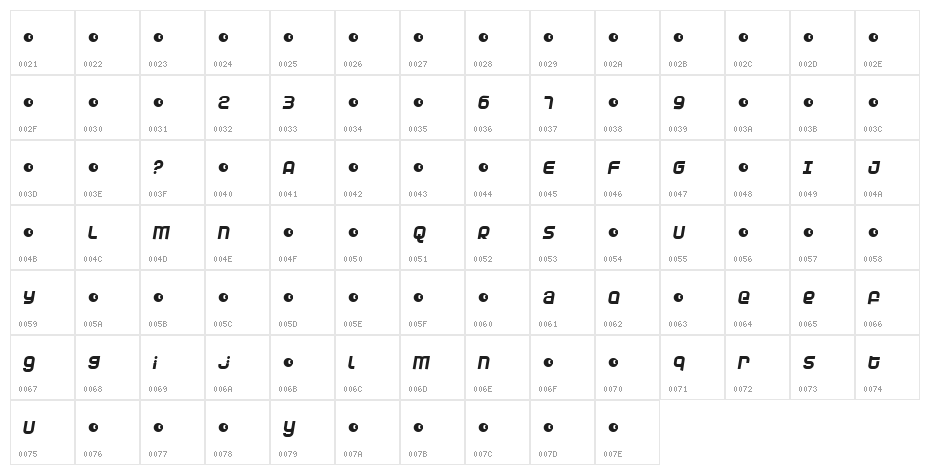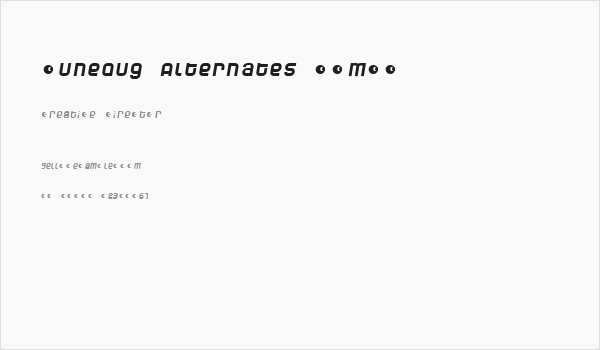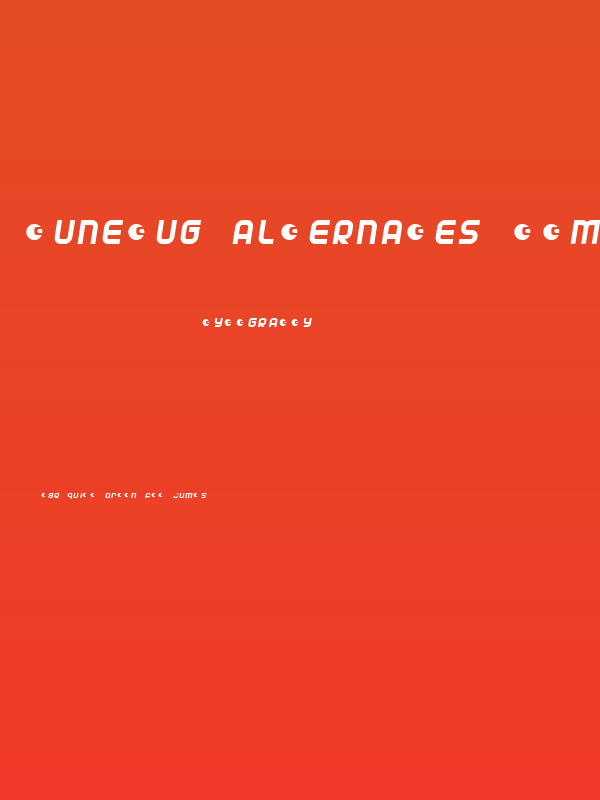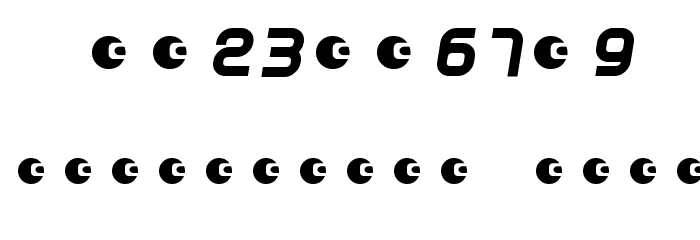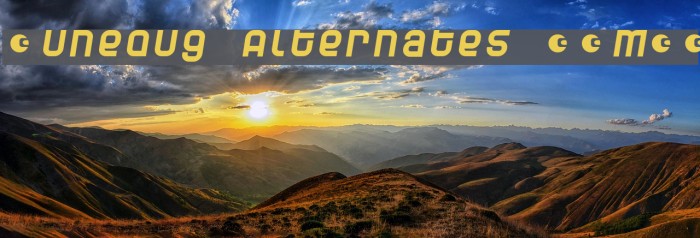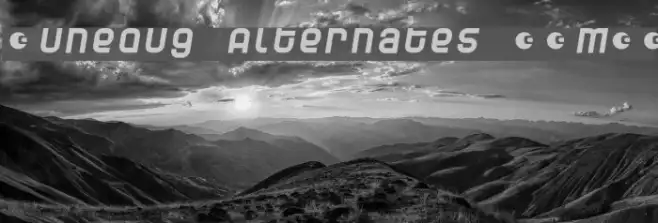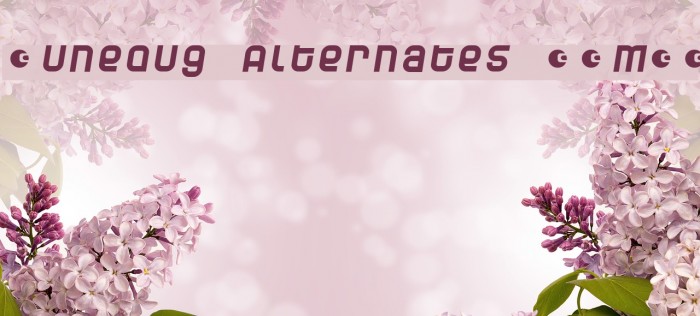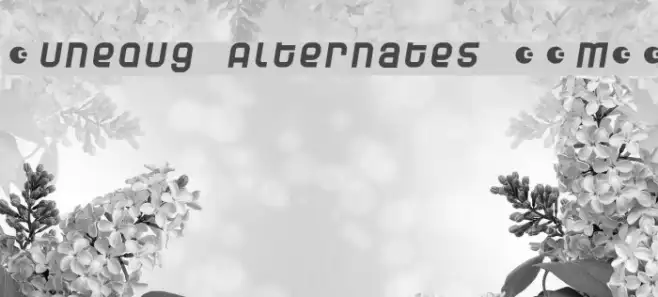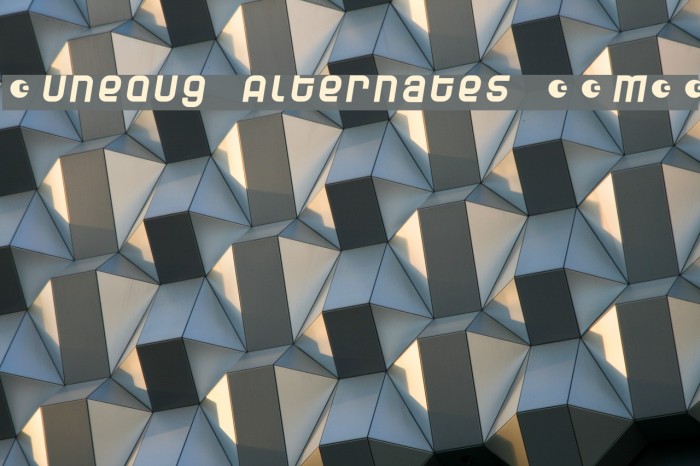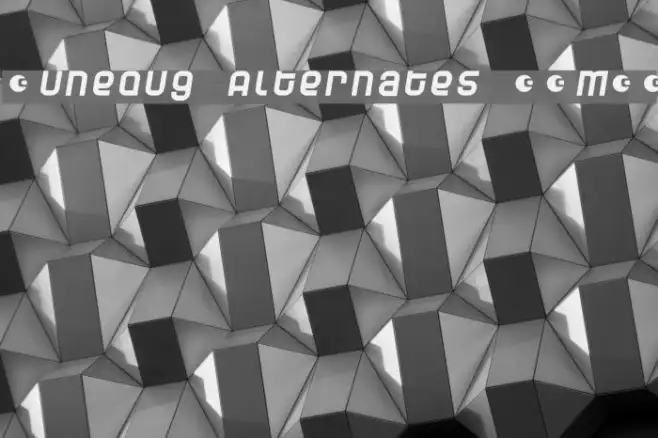
Dunebug Alternates 45MPH Font
Dunebug Alternates 45MPH Description
This font features a bold and modern design with a unique, futuristic flair. The characters are slightly slanted, giving a sense of motion and dynamism. Each letter is crafted with a distinctive geometric style, incorporating rounded edges and a consistent stroke width that adds to its contemporary appeal. The numbers and special characters maintain the same aesthetic, ensuring a cohesive look across all text elements. This font's design is both eye-catching and versatile, making it suitable for various creative applications.
| Proposed Projects | Ideal for branding, advertising, posters, and digital media projects that require a modern and dynamic look. |